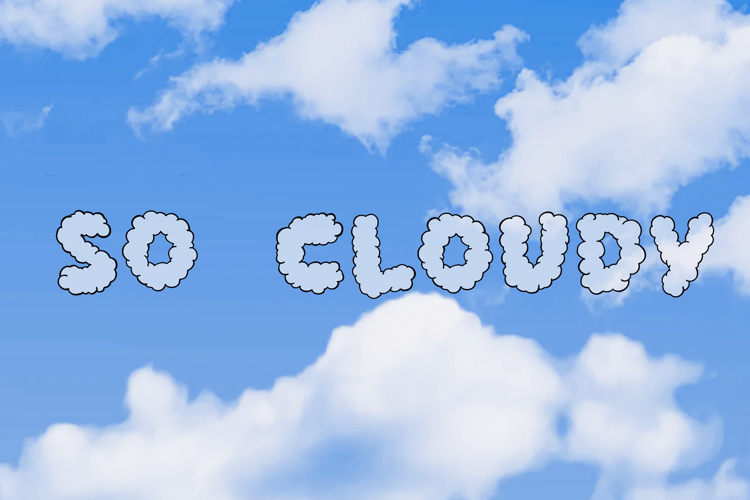
So cloudy Font
An outline version of cloudy font https://www.fontspace.com/cloudy-font-f110118 with some tweaks. Bubble style comic clouds in action! Created with Fontself for iPad.